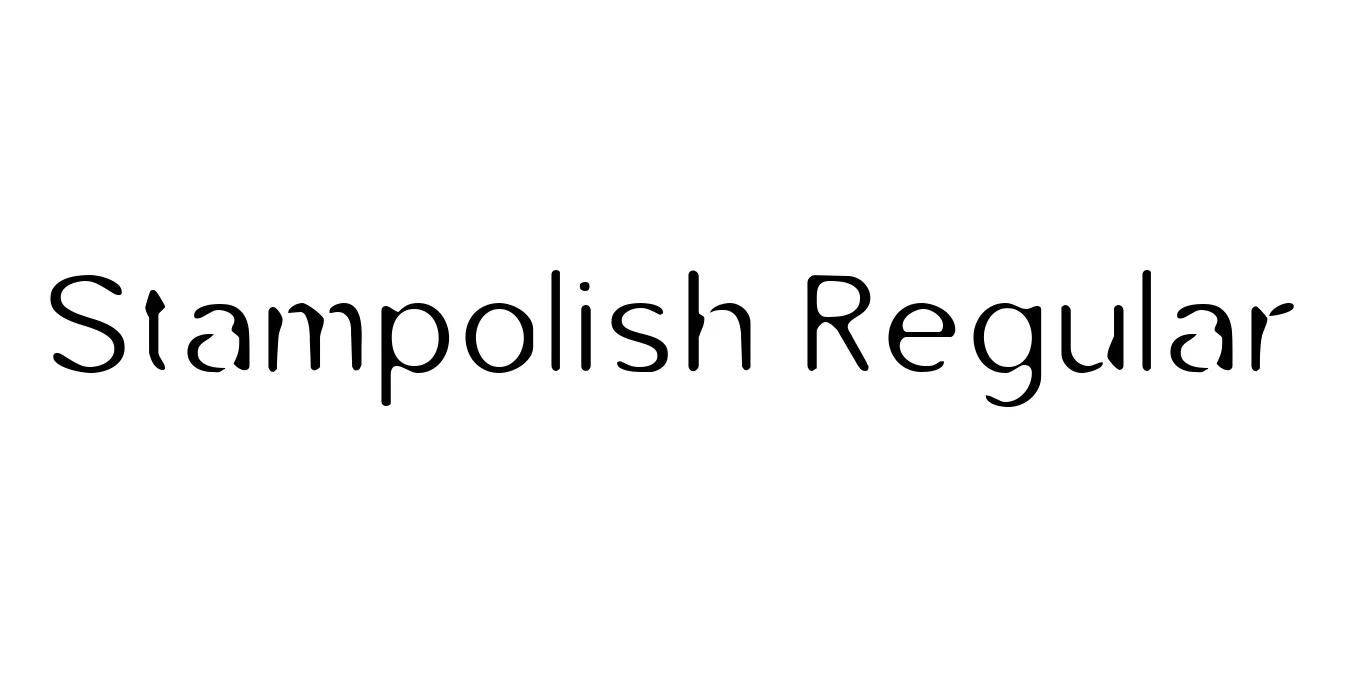
Stampolish Regular
Stampolish Regular is a distinctive display font that captures the authentic look and feel of a manual rubber stamp. Characterized by its weathered textures and slightly irregular outlines, this typeface brings a sense of handcrafted nostalgia to modern design projects. The design maintains a perfect balance between legibility and a gritty, vintage aesthetic, making it a favorite for designers looking to evoke a raw or industrial vibe.
Ideal for branding and packaging, Stampolish Regular excels in scenarios where a rugged, organic touch is needed. Whether it is used for bold headlines, labels, or promotional materials, the font provides a unique personality that mimics physical ink bleeding and pressure. Its versatility allows it to transition smoothly between casual, rustic settings and more structured, vintage-inspired editorial layouts.
Stampolish Regular Best Uses
Perfect for organic or craft product labels needing a handmade look.
Great for creating eye-catching quote graphics and rustic stories.
Ideal for brands wanting an industrial, antique, or manual aesthetic.
Works exceptionally well for concert or event flyers with a retro theme.